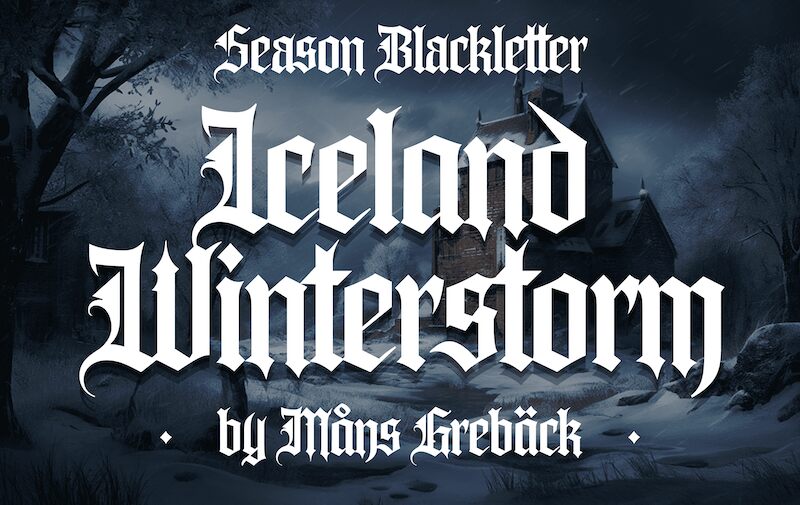
Iceland Winterstorm is a bold blackletter font that comes in both uppercase and lowercase letters, along with symbols and numbers. This condensed font designed by Mans Greback carries a distinct medieval atmosphere, which makes it suitable for logo design, vintage labels, book cover design, and others.
It can be used for editorial design, vintage book titles, branding and packaging, logotype design, display signage, invitation cards, greeting cards, poster design, or anything else you deem appropriate.